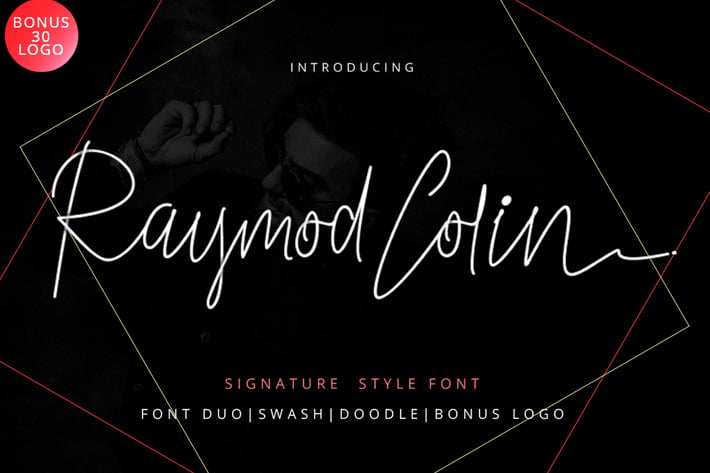
Raymod Colin Font Duo
Raymod Colin Font Duo & Free 30 Logos
Raymod Colin Font is a hand lettering typeface, with authentic Clean and bold imperfections, and a very bouncy baseline It has a perfectly paired complimentary marker font , and a super handy set of bonus Swash. Ideal for logos, handwritten quotes, product packaging, header, poster, merchandise, social media & greeting cards.